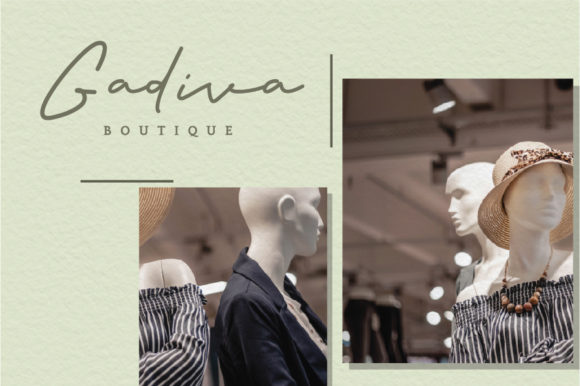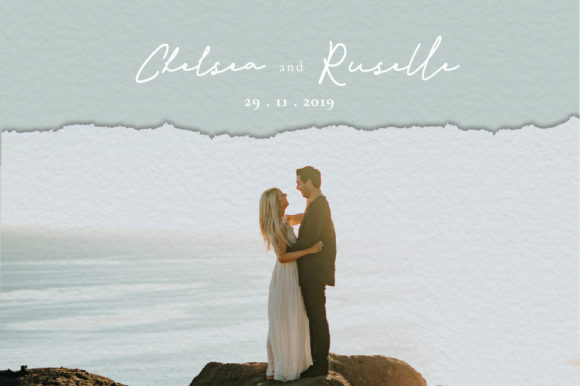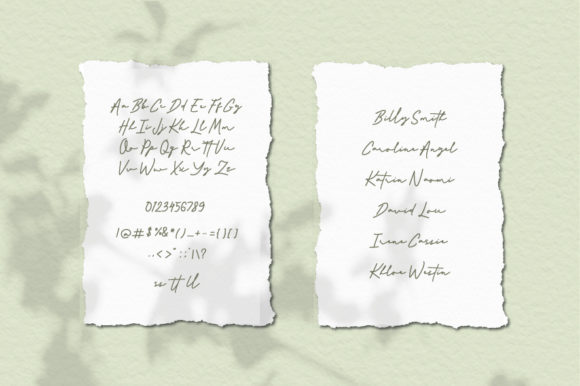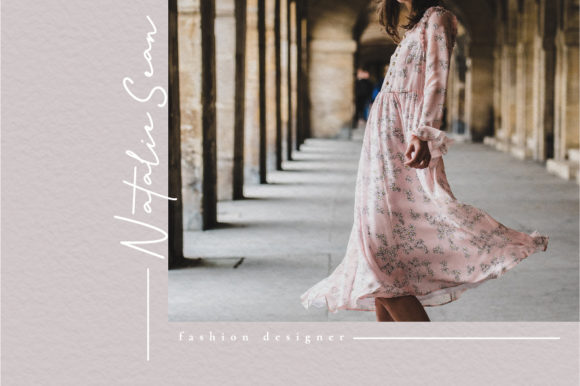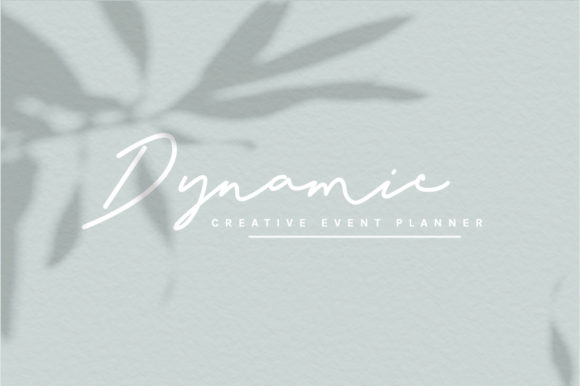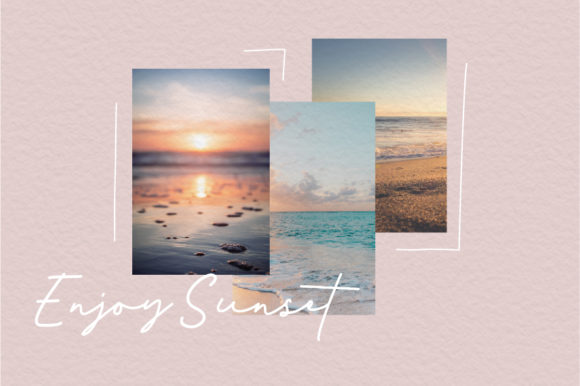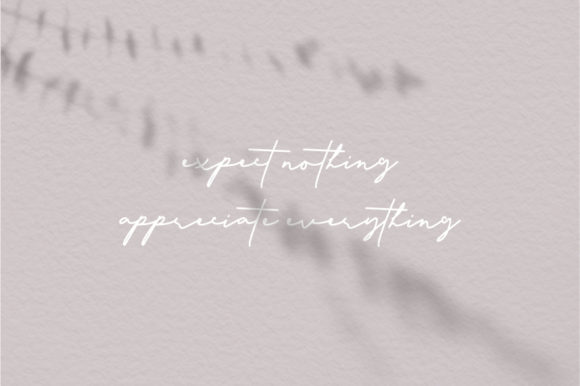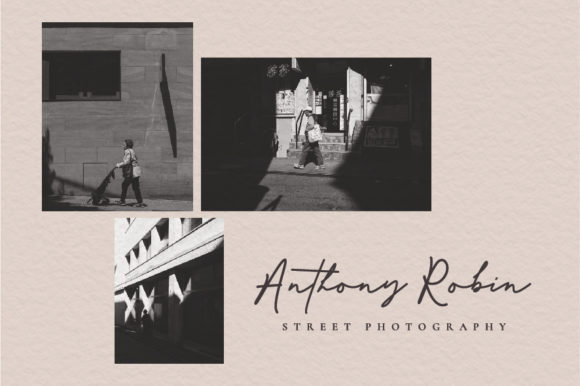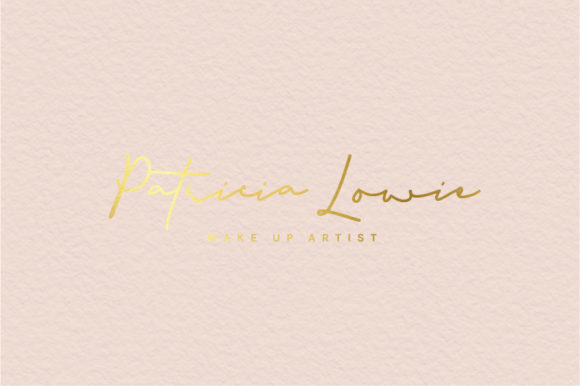
HomeScript FontsKasttle Font Script Fonts Kasttle Font FacebookXPinterestWhatsApp Kasttle Font Poster 2 Kasttle Font Poster 3 Kasttle Font Poster 4 Kasttle Font Poster 5 Kasttle Font Poster 6 Kasttle Font Poster 7 Kasttle Font Poster 8 Kasttle Font Poster 9 Kasttle Font Poster 10 About Kasttle Font Kasttle is a sweet and unique script font that radiates elegance. Get inspired by its casual, yet authentic vibe! DOWNLOAD NOW People also explored Wild Wide Font Hoodie & Sweater Font The Wild Eagle Font PN Octothorp Font Sweater Font Reindeer Font Auttera Signature Font Simple Life Font Heart Dingbats Font 310 0 TagsKasttle Font Previous articleVanetta FontNext articleAlone Font LEAVE A REPLY Cancel reply Comment: Please enter your comment! Name:* Please enter your name here Email:* You have entered an incorrect email address! Please enter your email address here Website: Save my name, email, and website in this browser for the next time I comment. Personal Use Free Amillina Monogram Personal Use Free Read more about this font Bashira Personal Use Free Read more about this font Laneway Personal Use Free Read more about this font Pompom Personal Use Free Read more about this font BLOG Elegant Wedding Invitation Fonts – Handwritten & Script Fonts Elegant Wedding Invitation Fonts Your wedding day is one of the most important moments of your life, and every detail matters—including your invitation design. Our... The 10 Best Handwriting Fonts to Add Personality to Your Designs Free Fonts Risk: Why Free Fonts Can Be Dangerous for Designers Modern Sans-Serif Fonts That Brands Love in 2025